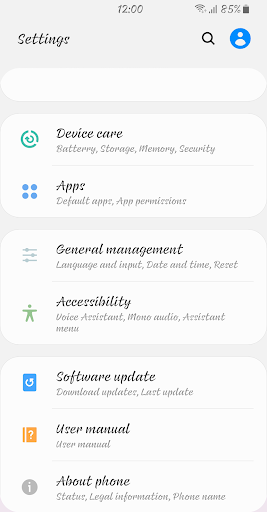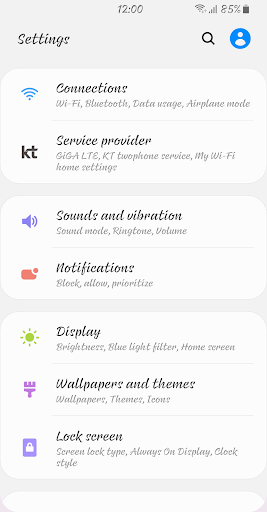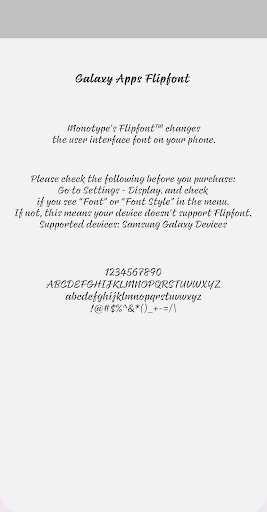
Rt RiverFlow
Rt RiverFlow is a fast-written brush script font with strong and flowing movement. Apply this font to make your device unique and attractive. Enjoy!